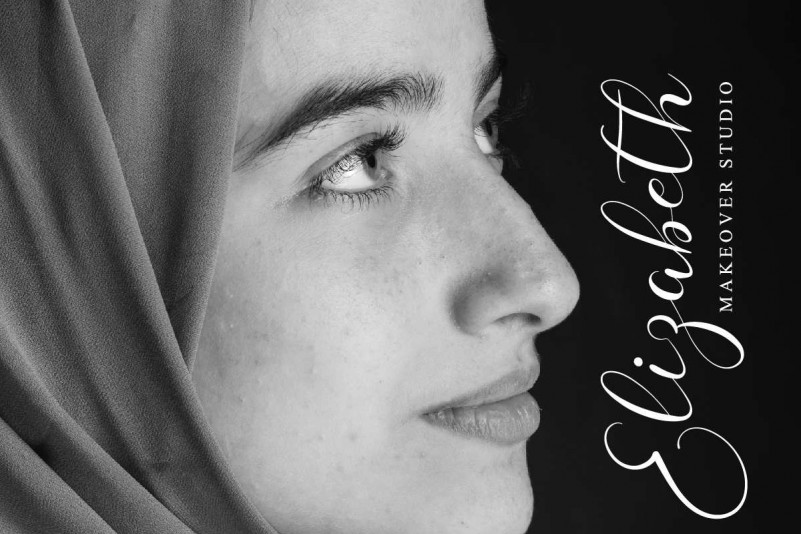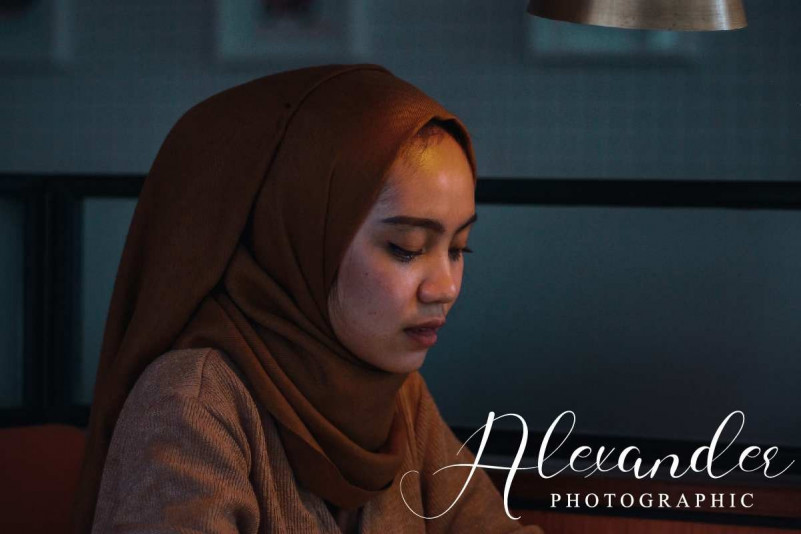
Bellomatch Script Font
Bellomatch is a lovely and timeless handwritten font. It is the best choice for creating eye catching logos, branding and quotes. Every letter has a unique and beautiful touch, which will make your design come alive!